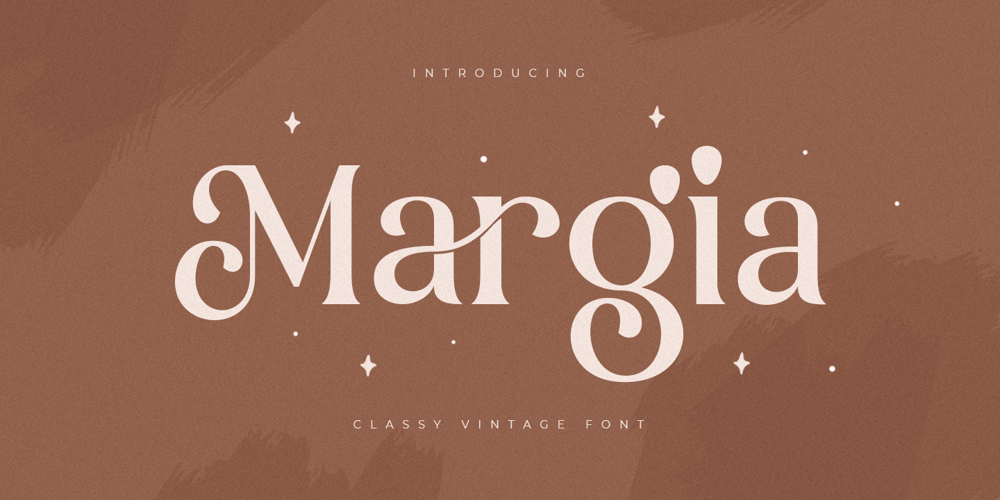
Margia
Margia font
Margia Font Family was designed by Zamroni Hamzah and published by Sensatype Studio. Margia contains 1 styles and family package options. New Classy serif that we created special for Vintage projects with extra ligature and alternates in unique shape will be ready to add value of your brand. It so nice to leverage designer or product owner that need solutions to make their design look more classy but vintage. And specially for this font, We prepared any ligatures and any alternate characters to help you create unlimited variations for your creative needs.Margia serif font ready with: Any options to get creative variations (combination of Alternate and Ligatures) 4 format already Preview as a inspirations that you can do with Margia font Ready with Lowercase and Uppercase characters Wish you enjoy our font. ๐Ÿ™‚